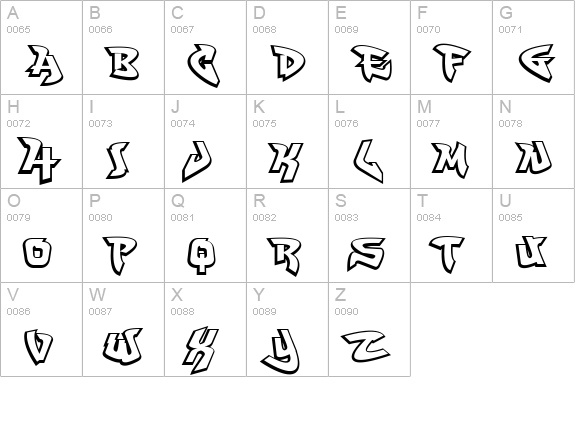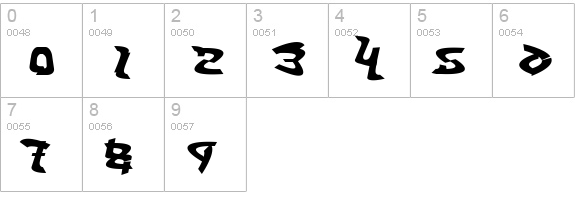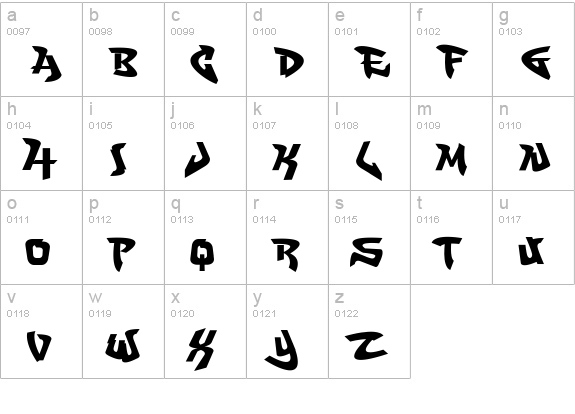
FatCap Font Details
FatCap font is a bold and eye-catching typeface that exudes a sense of strength and confidence. Its thick strokes and rounded edges give it a playful yet modern look, making it perfect for headlines, posters, and branding projects. This versatile font is sure to make a statement and grab the attention of your audience. What's even better is that FatCap font is available for free download at FontsMarket.com. Whether you're a designer looking to add a unique touch to your creations or a business owner in need of a standout logo, this font is a must-have in your toolkit. Get your hands on FatCap font today and unleash your creativity with this striking typeface.